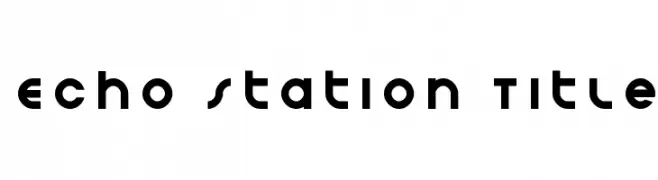
A modern, geometric sans-serif typeface with bold, uniform strokes.
A modern, light sans-serif font with clean lines and geometric shapes.
A modern, geometric sans-serif font with clean lines and balanced spacing.
A sleek, modern font with thin lines and balanced spacing.
A bold, modern sans-serif font with clean lines and excellent legibility.
A modern, geometric sans-serif font with a clean and minimalistic design.
A modern, geometric sans-serif font with a clean and professional look.
A thin, modern font with geometric shapes and uniform strokes.
A playful, handwritten font with tall, narrow letters and smooth, rounded strokes.
A playful, romantic script font with heart accents and a handwritten style.
A playful, rounded font with a whimsical and friendly design.
A playful, romantic cursive script with whimsical details.
A bold, geometric font with a modern and clean aesthetic.
A modern, geometric sans-serif font with clean lines and balanced spacing.
A bold and ornate blackletter font with intricate details and historical elegance.
An ornate blackletter font with intricate, bold designs and historical flair.
A bold, playful font with rounded edges and medium contrast, perfect for creative projects.
A bold, italicized font with a modern and playful style.
A geometric, maze-like font with a bold, digital aesthetic.
A classic blackletter font with ornate, high-contrast strokes.
A classic blackletter font with ornate, angular lines and decorative serifs.
A modern, light sans-serif font with excellent readability and low contrast.
A modern, geometric font with thin lines and a clean, elegant style.
A modern, geometric font with clean lines and open curves.
A playful, hand-drawn font with exaggerated serifs and a whimsical style.
A bold, geometric font with sharp angles and a modern, industrial feel.
A flowing, cursive script font with elegant, connected letters.
A bold, modern geometric font with rounded characters.